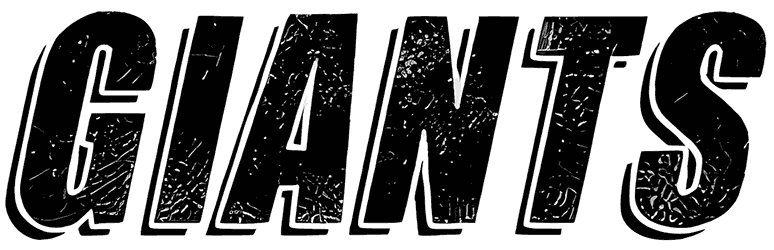
Giants Font
If you are in the middle of an editorial project and require an all-caps 3D font, we have an amazing offer the same as the Giants for you.
This magical adventure font comes with bold and chunky letters; thus, it can be your reliable assistant in the field of designing eye-grabbing video game posters, applications, social media posts, stickers, or billboards. Since it can share a sense of modernity, grunge, or smudginess, the lack of numbers won’t be a problem.